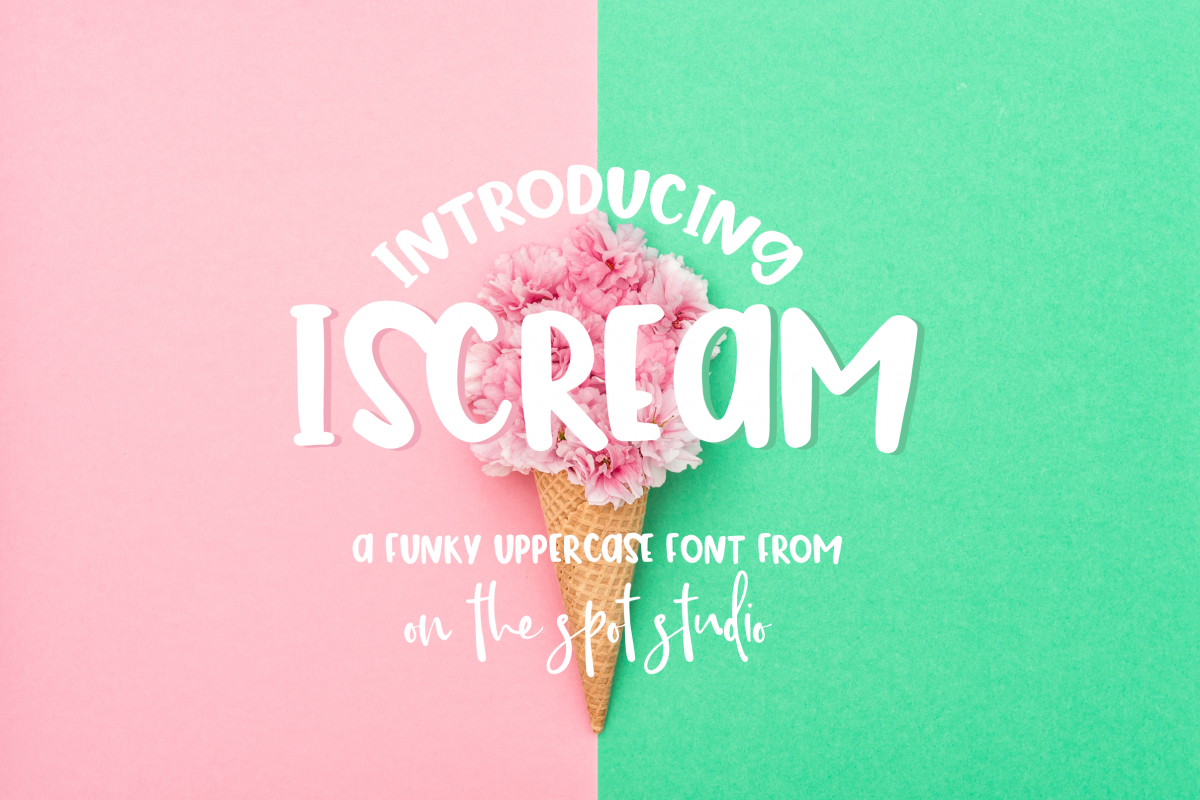
iScream - A fun and funky uppercase font
Iscream
iScream is a fun all uppercase font with the uppers and lowers being different for optimal mix and matching! Includes punctuation and numbers as well!